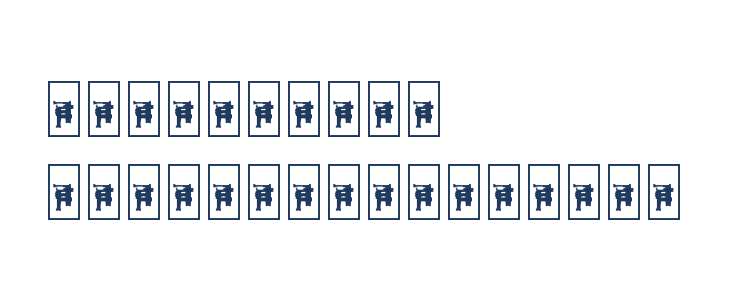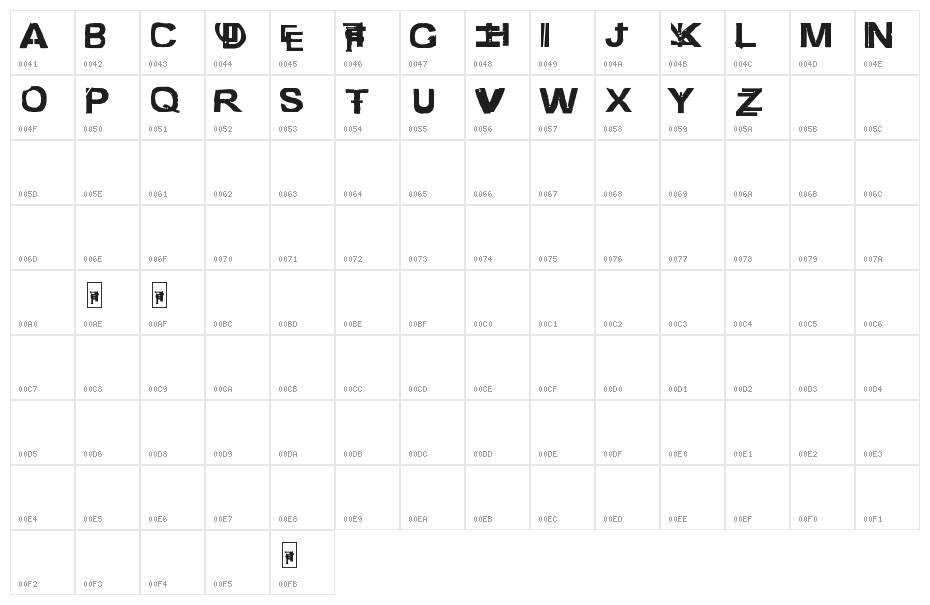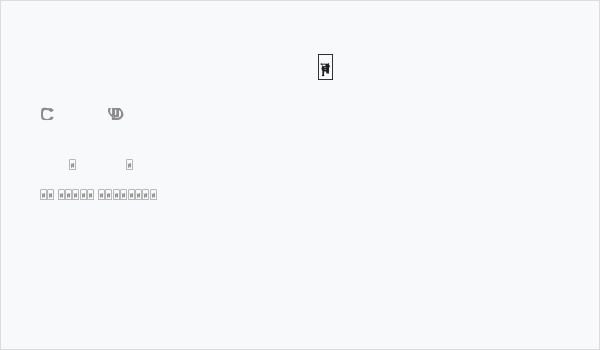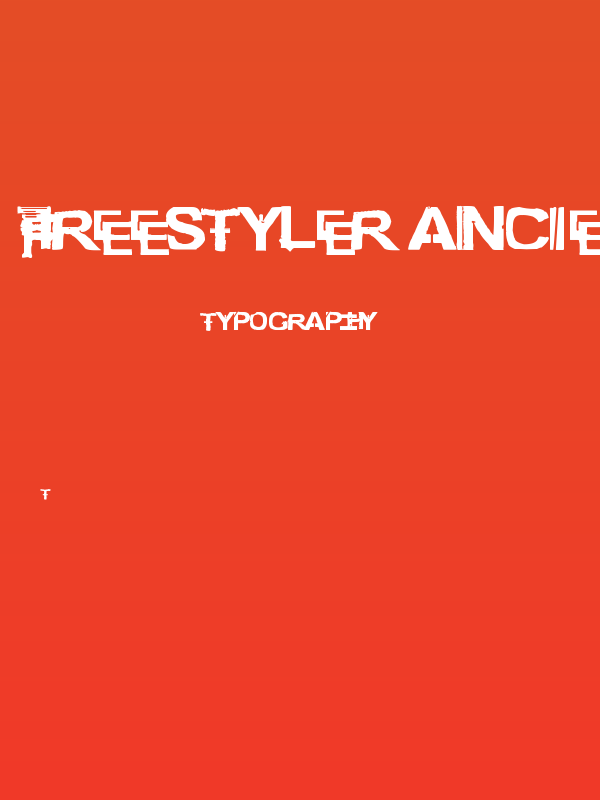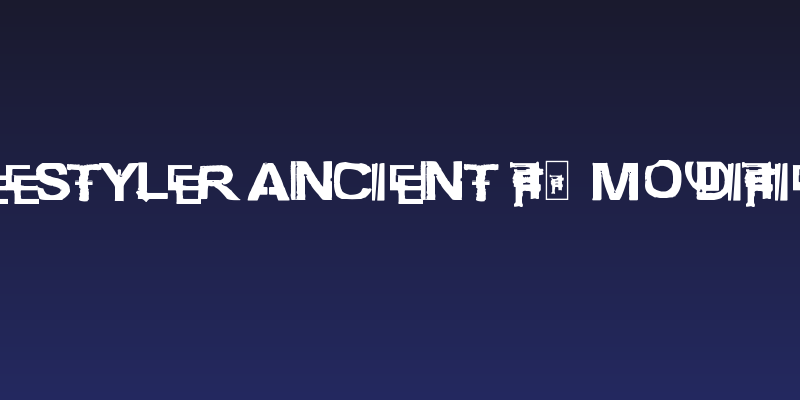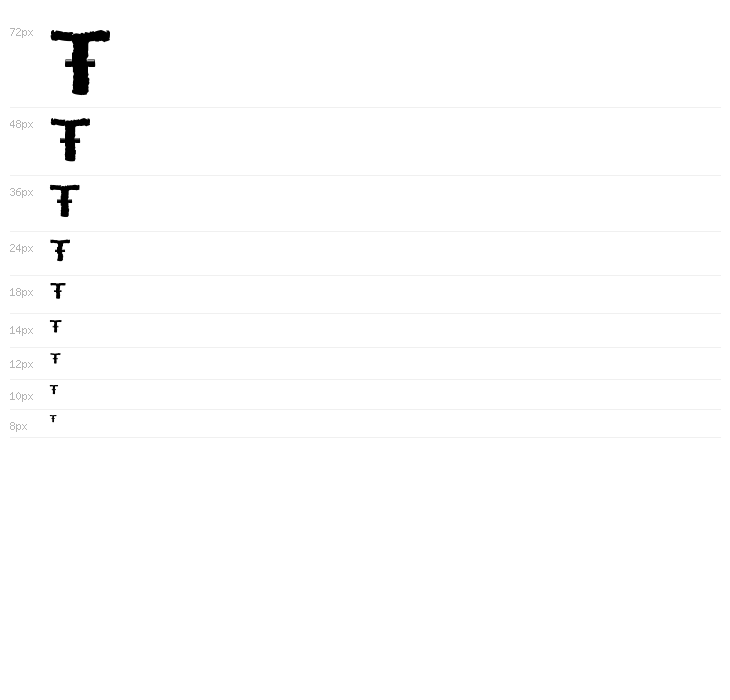
freestyler ancient f6[modified] Font
freestyler ancient f6[modified] Description
This font presents a bold and striking appearance with its heavily distorted and overlapping letterforms, creating a chaotic yet intriguing visual effect. The uppercase letters are particularly prominent, with thick strokes and a sense of movement that suggests a dynamic energy. The design is reminiscent of ancient or distressed styles, giving it a unique and artistic flair. The characters are tightly spaced, adding to the intensity of the overall look. This font is not suitable for body text due to its complexity but can make a strong impact in headlines or artistic projects.
| Use Case | Headlines, Artistic projects |
| Proposed Projects | Ideal for artistic projects, album covers, posters, or any design requiring a bold, eye-catching headline. |